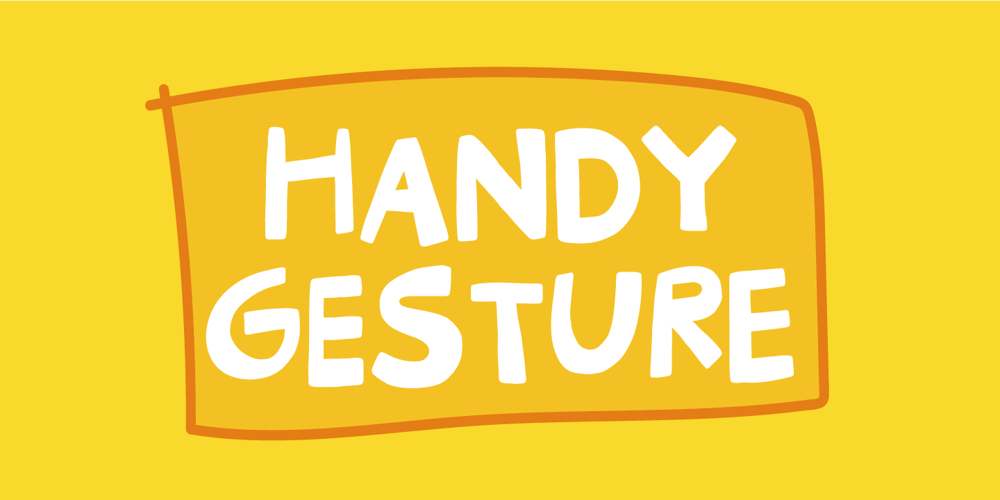
Handy Gesture Font Family was designed by Jakob Fischer and published by Bogstav. Handy Gesture contains 2 styles and family package options. Say hello to my handy font!Use it whenever you need something handmade, vibrant and lively. I’ve added 6 different versions of each letter – just fo ahead and type and watch the letters automatically cycle – or choose the ones you prefer from the glyphs menu